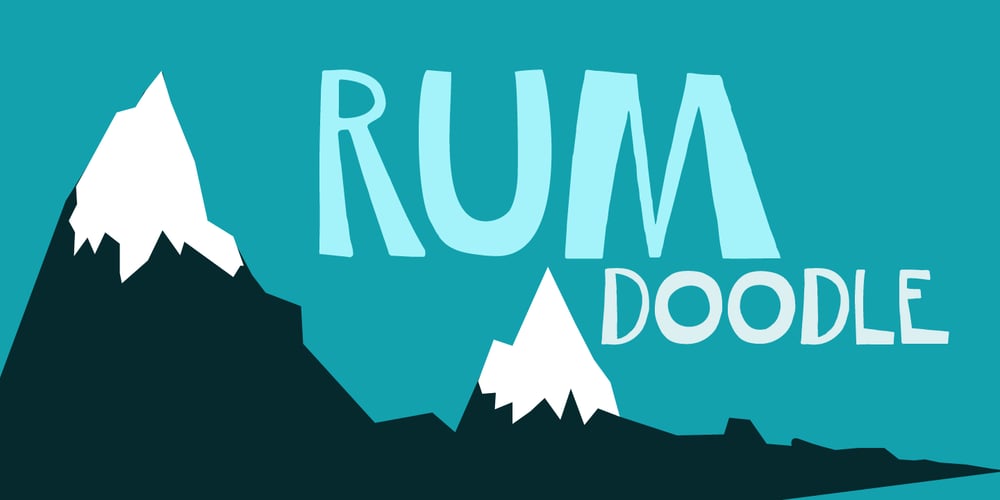
Rum Doodle
Rum Doodle font
Rum Doodle Font Family was designed by David Kerkhoff and published by Hanoded. Rum Doodle contains 2 styles and family package options. The Ascent of Rum Doodle is short story written in 1956 by W. E. Bowman. The story is a parody of the many non-fictional mountaineering chronicles and tells the adventures of a group of incompetent climbers, trying to conquer the highest mountain in the world. Rum Doodle is an angular, uneven font, ideal for posters and book covers. The lower case letters all have alternates and it comes with a mountain of language support.